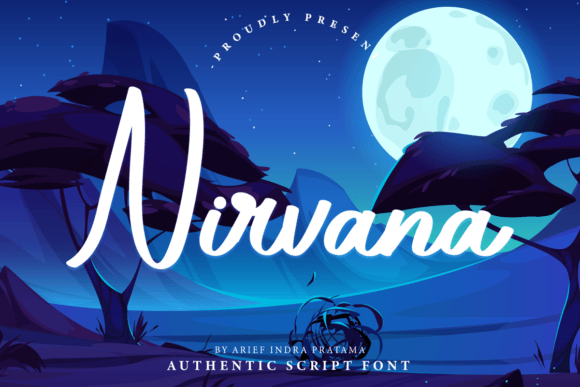
Introducing Nirvana Font: The Epitome of Creative Expression in Web Design
In the ever-evolving world of web design, where creativity and uniqueness reign supreme, Nirvana Font emerges as a beacon of inspiration, a font family meticulously crafted to elevate your digital creations to new heights of visual allure. Step into a realm where typography transcends the ordinary, where every letter, every curve, and every stroke carries the weight of artistry and emotional resonance.
Unleash the Power of Authenticity
Nirvana Font embodies the essence of authenticity, a script font that draws its inspiration from the raw beauty of handwritten calligraphy. Its carefully crafted strokes evoke a sense of genuine human touch, adding a layer of warmth and intimacy to your digital designs. Whether you're creating a captivating wall display, a heartfelt wedding invitation, or a captivating social media post logo, Nirvana Font will infuse your work with a touch of authenticity that resonates with your audience.
A Symphony of Versatility
With its inherent versatility, Nirvana Font adapts seamlessly to a myriad of design applications. Whether you're crafting eye-catching advertisements, designing sleek product packaging, or creating captivating product designs, Nirvana Font effortlessly complements your vision, adding a touch of elegance and sophistication to every element. Its versatility extends to labels, photography, watermarks, invitations, and stationery, making it the perfect choice for any project that demands impressive typography.
Immerse Yourself in a World of Creative Possibilities
Nirvana Font opens up a boundless realm of creative possibilities, inviting you to explore the depths of your imagination and bring your design aspirations to life. Its meticulously crafted characters dance across the screen, inviting you to weave captivating stories, express heartfelt emotions, and create designs that leave a lasting impression. As you immerse yourself in the world of Nirvana Font, you'll discover a font that empowers you to manifest your creative vision and captivate your audience with every stroke.